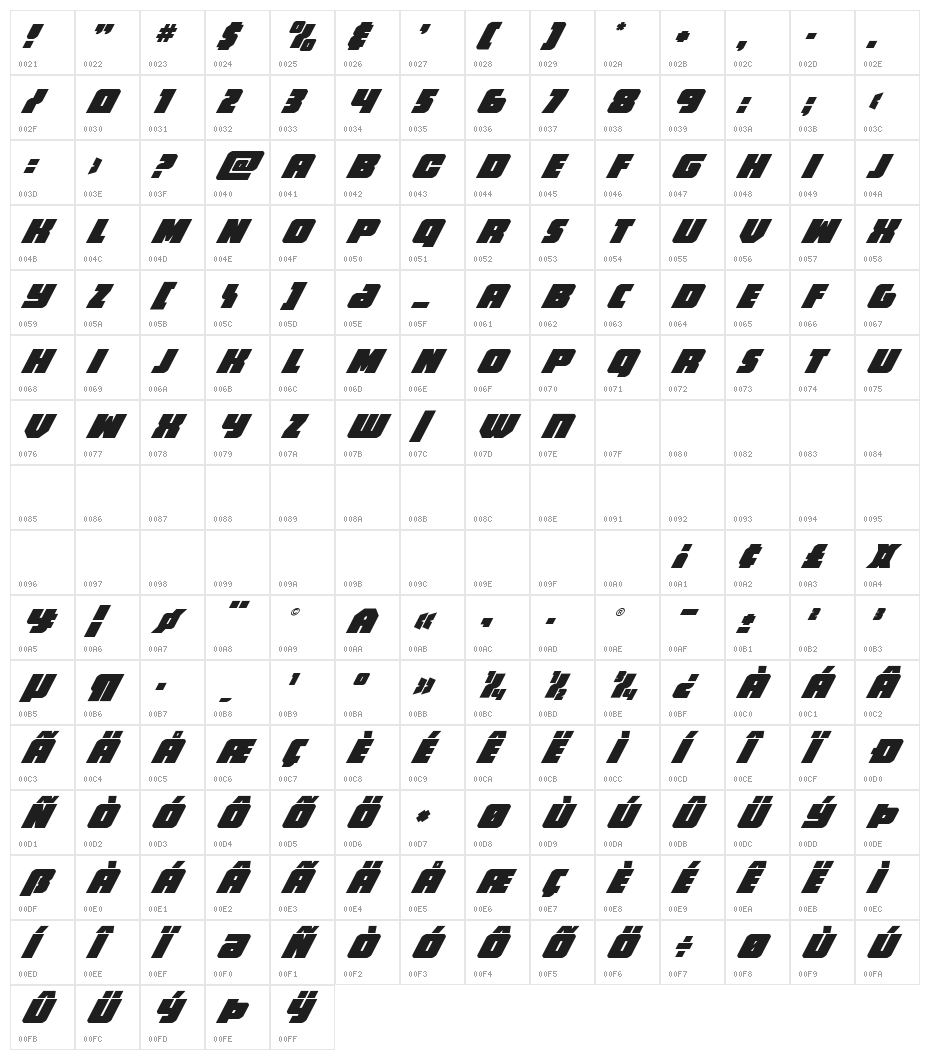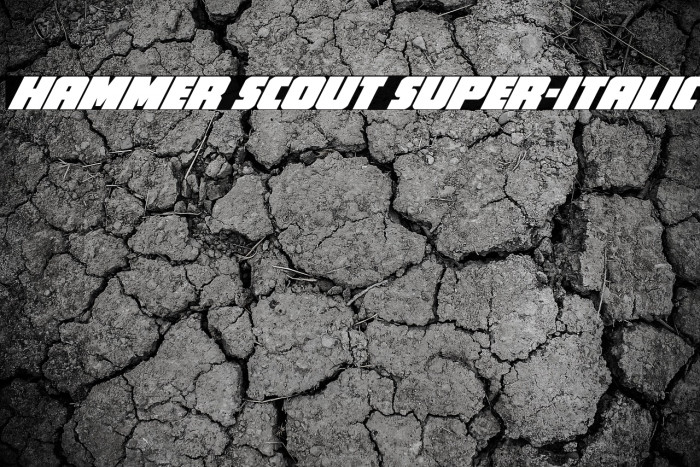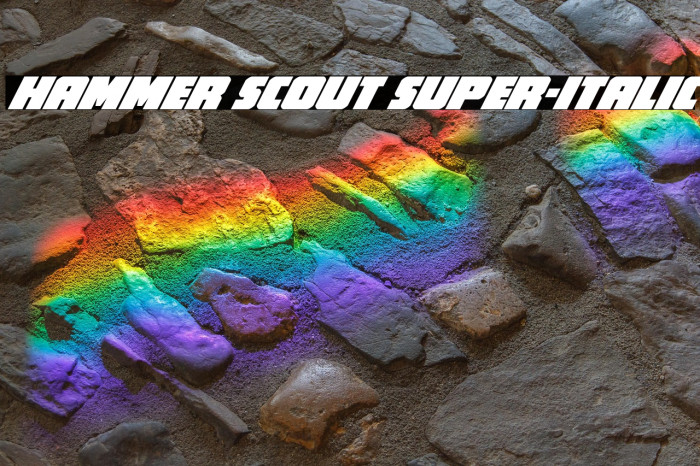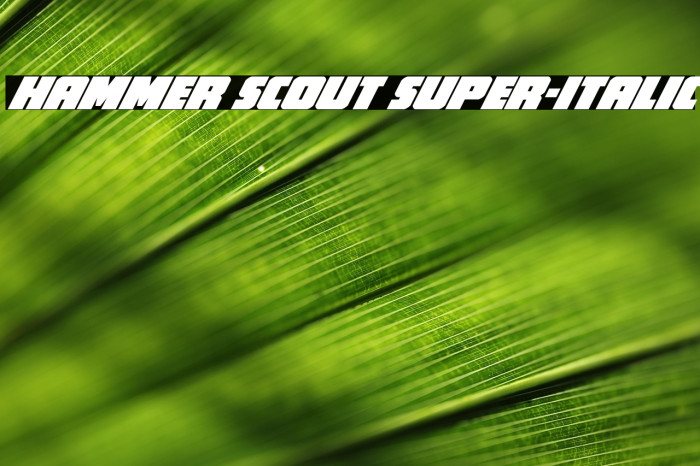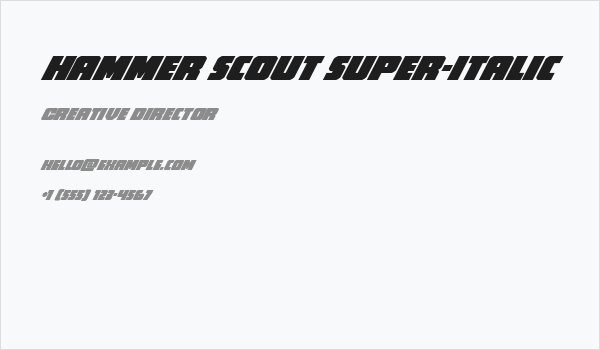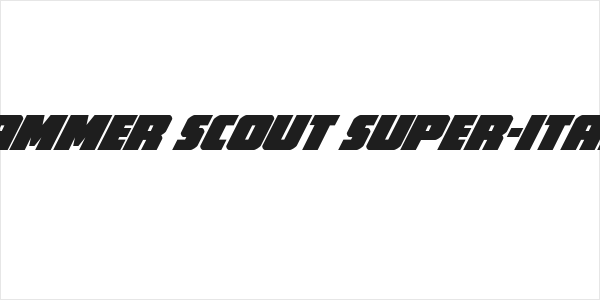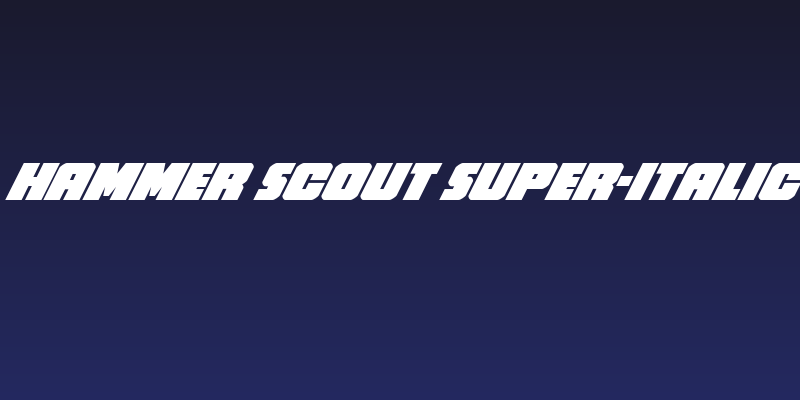
Hammer Scout Super-Italic Font
Hammer Scout Super-Italic Description
This font exhibits a bold and dynamic style with a strong italic slant, giving it a sense of motion and energy. The characters are wide and heavily weighted, with a distinct geometric structure that emphasizes sharp angles and clean lines. The uppercase and lowercase letters maintain a consistent style, with the uppercase being particularly impactful. Numbers and special characters are designed to match the boldness of the letters, ensuring a cohesive appearance across all text. The font's overall aesthetic is modern and assertive, making it ideal for projects that require a strong visual impact.
| Proposed Projects | Ideal for sports branding, dynamic posters, video game titles, and any project needing a bold, energetic typeface. |